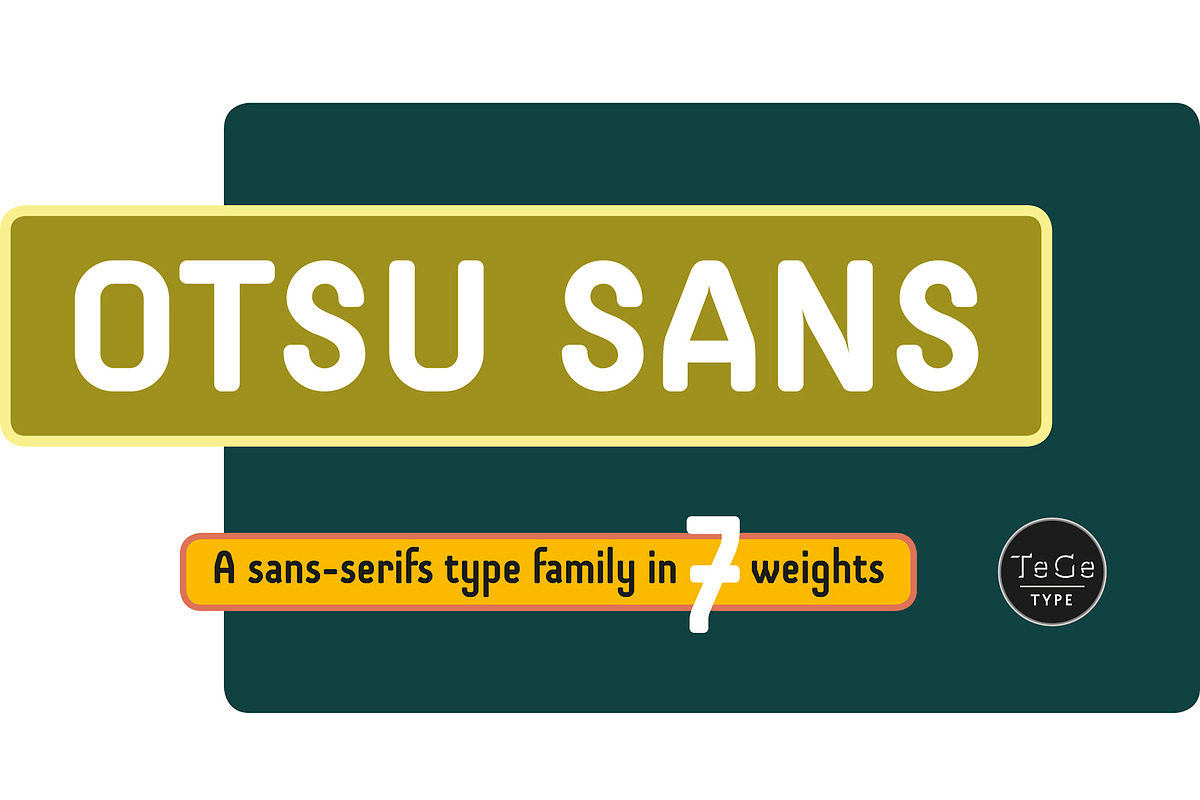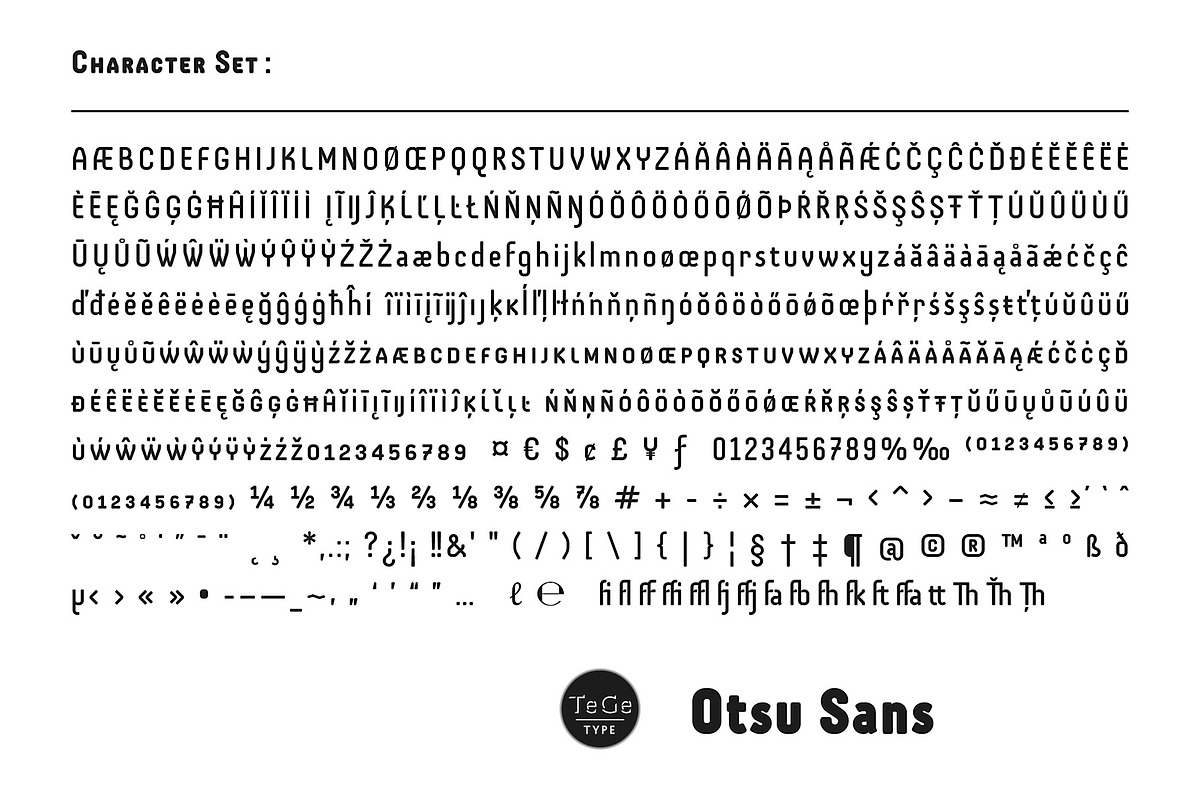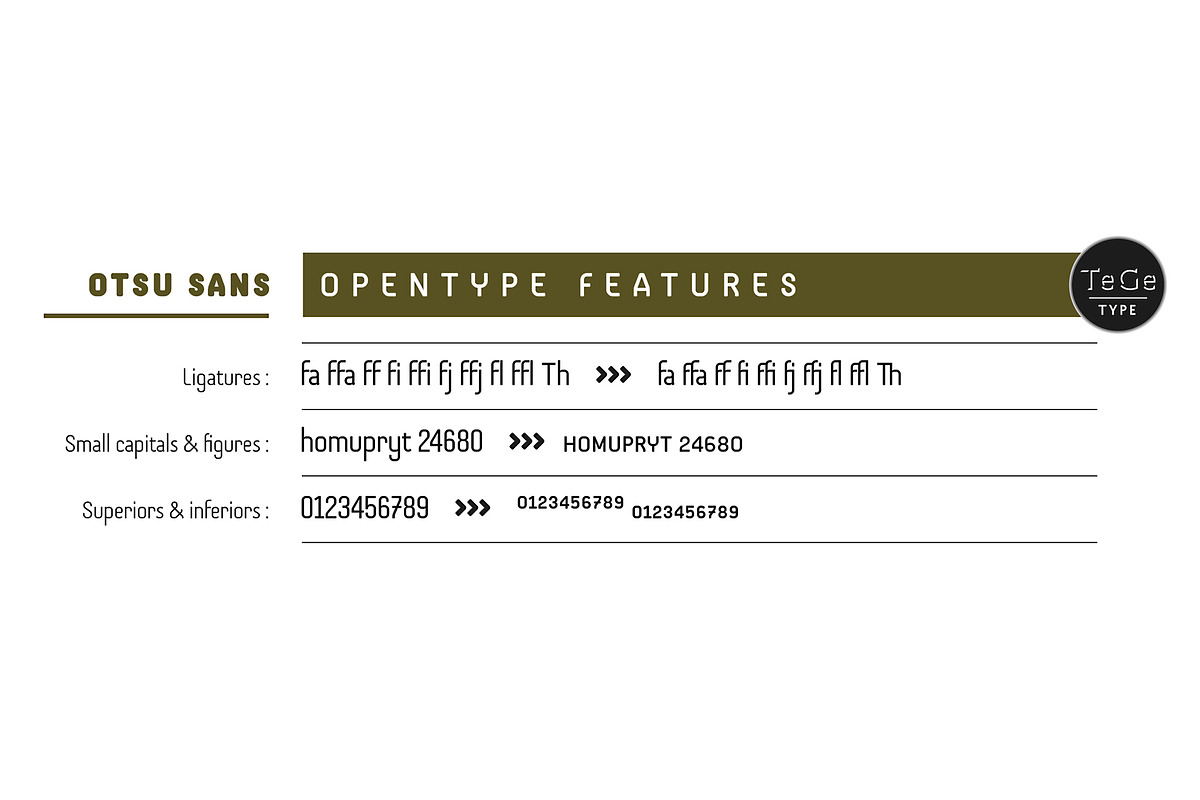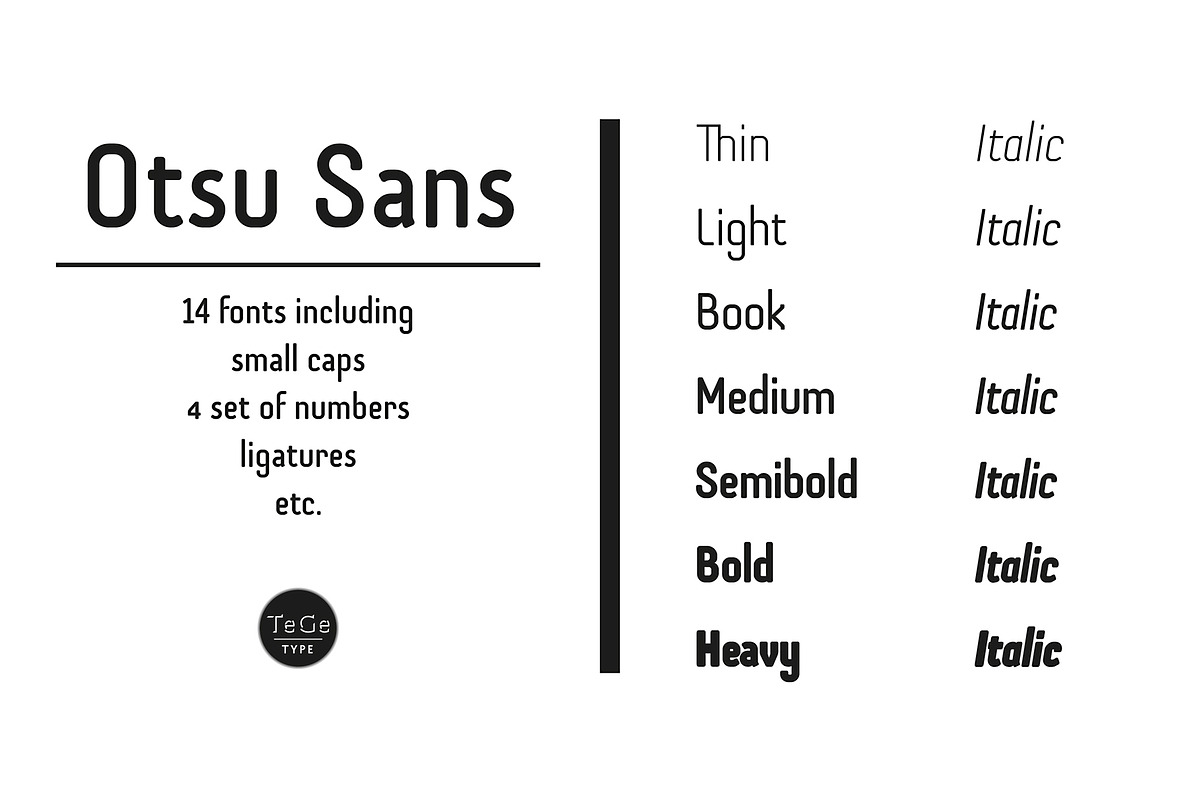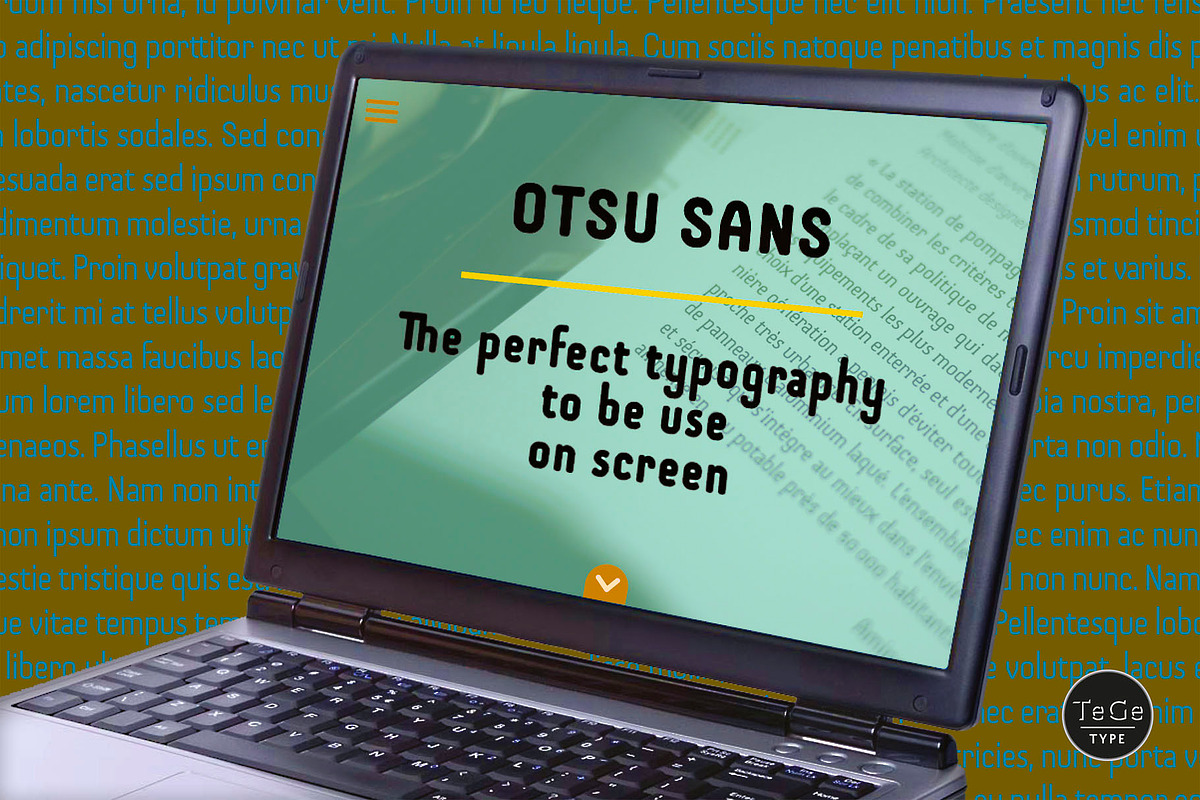
Otsu Sans
The Otsu Sans family is a new sans-serifs typefaces family based on a geometric design. It can be use for text as for titling applications.